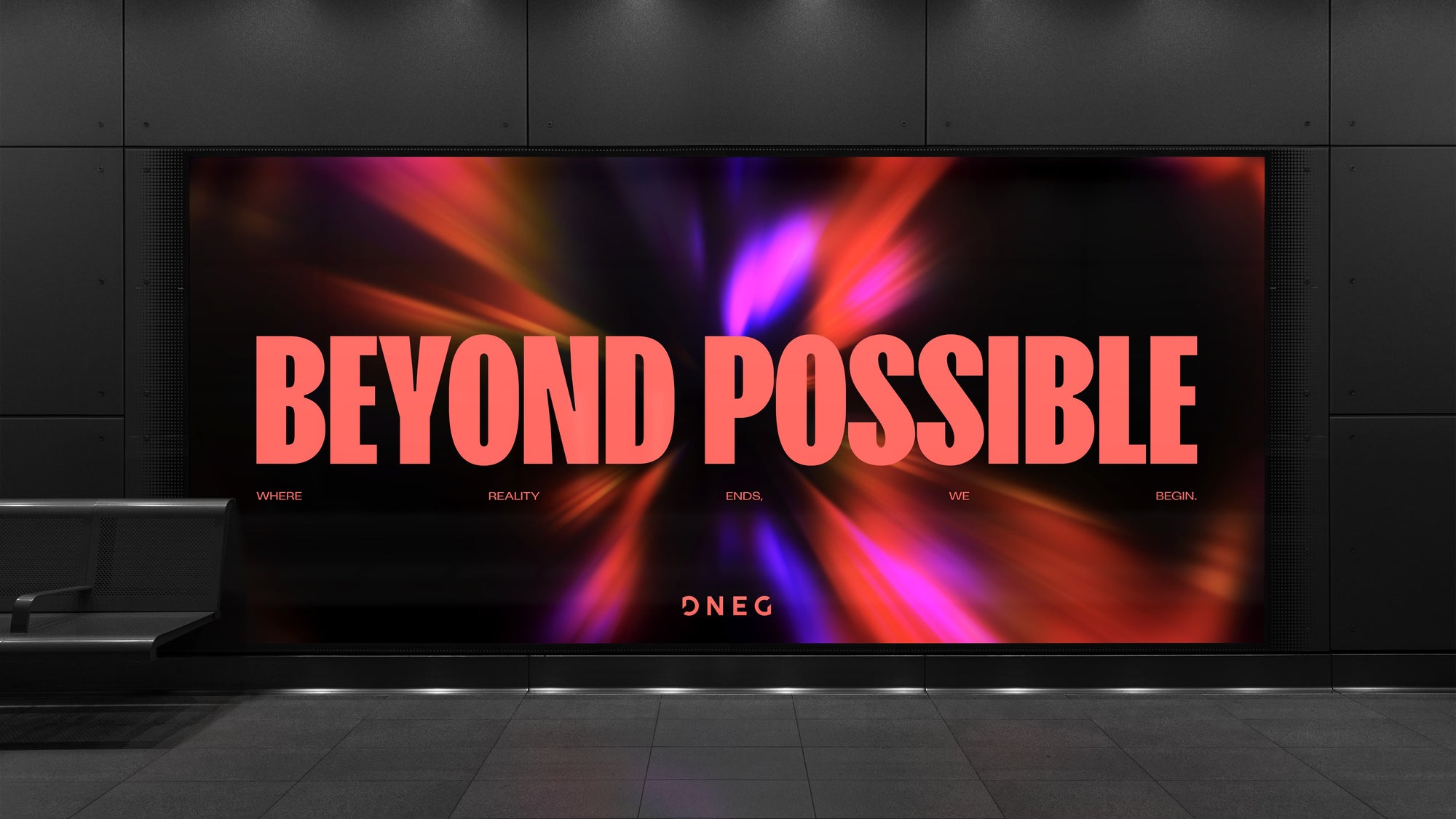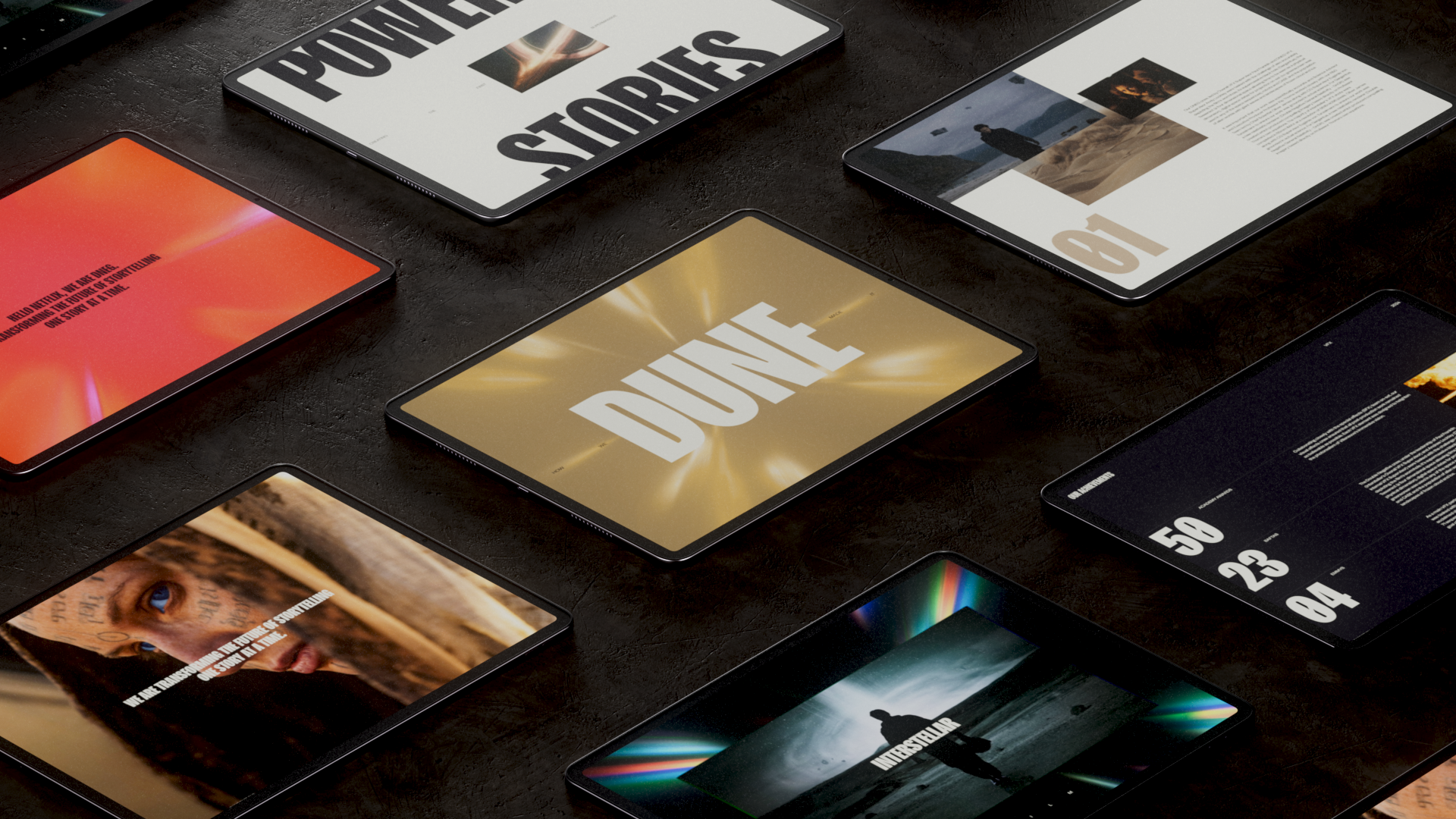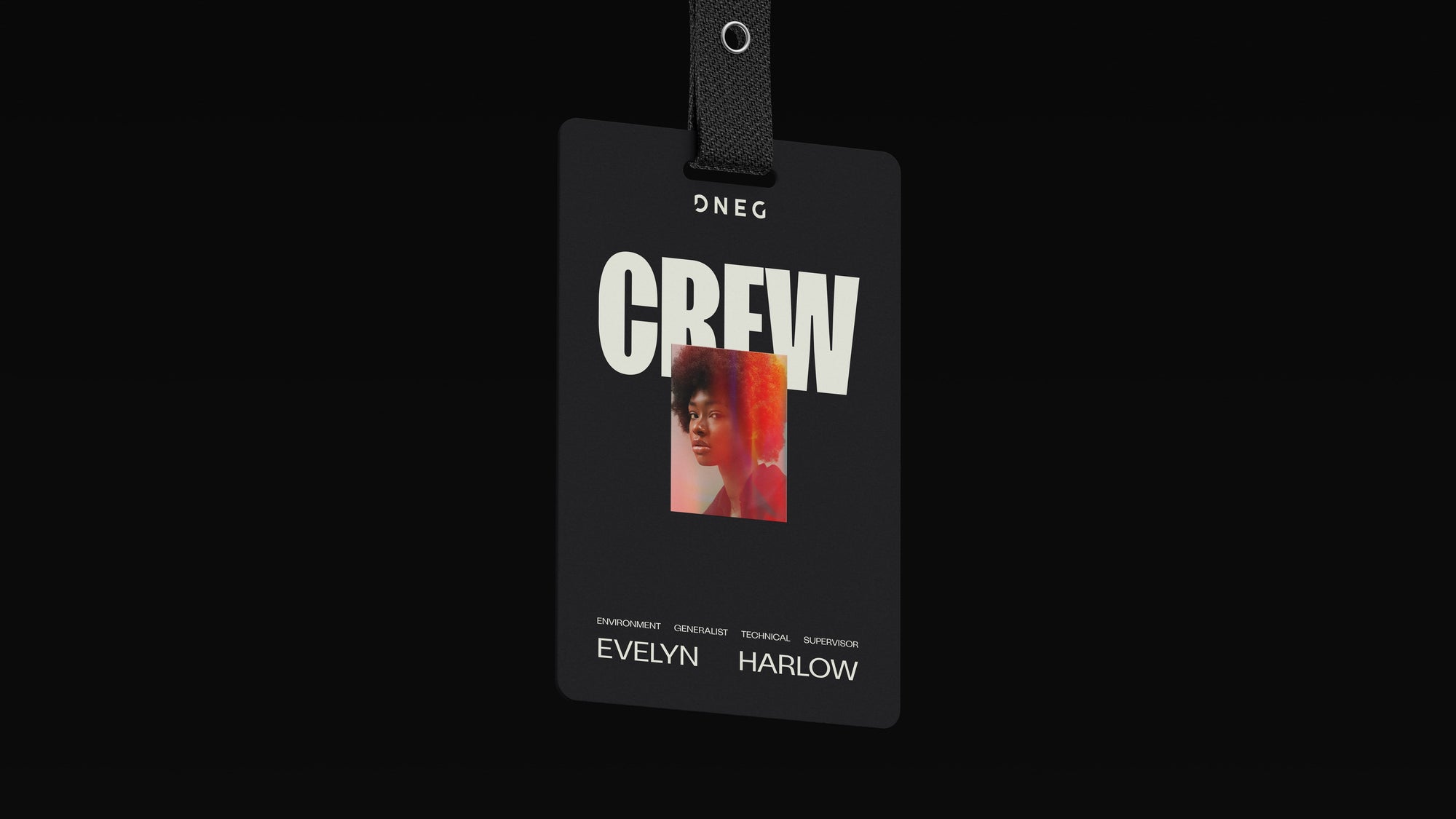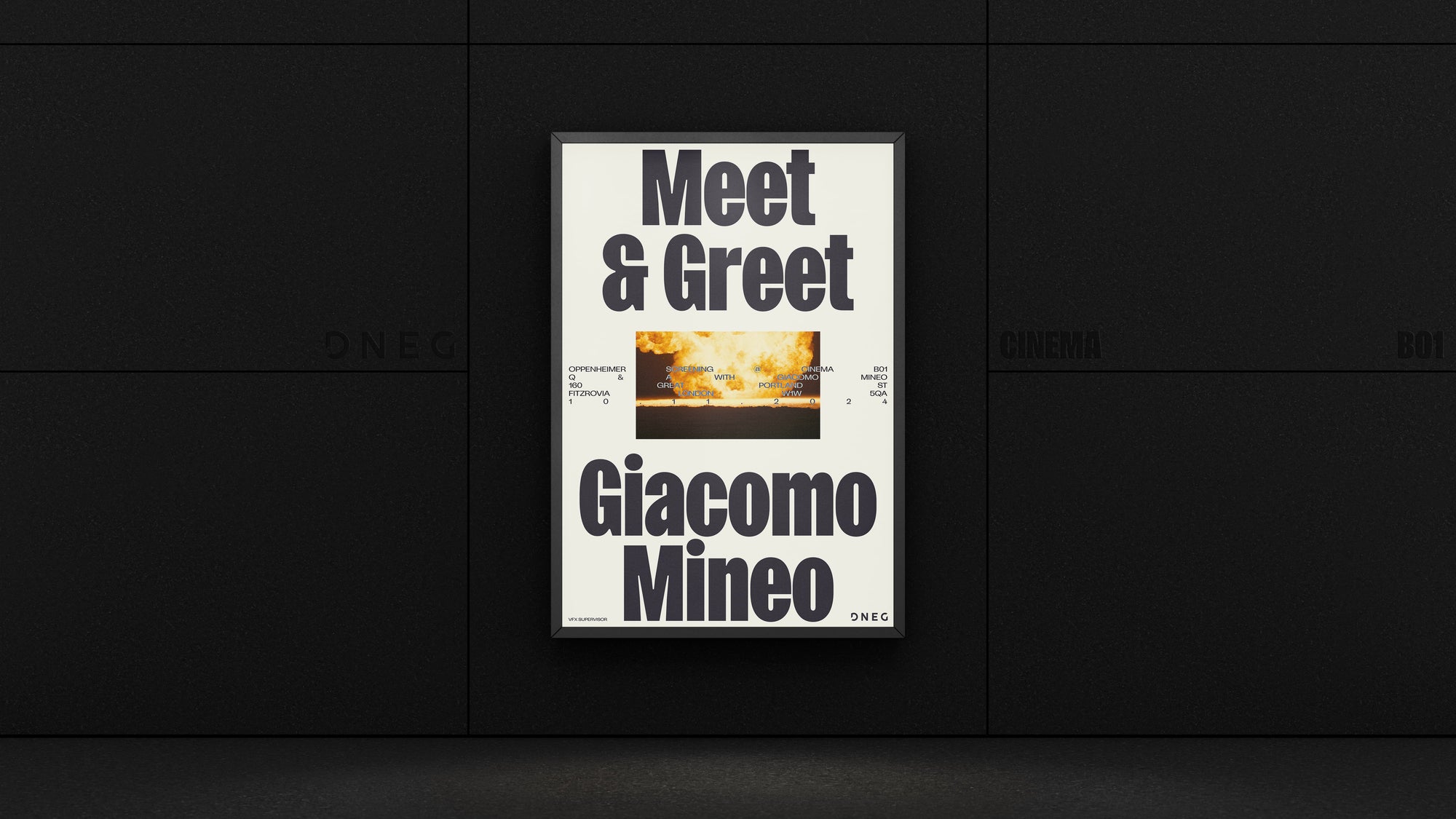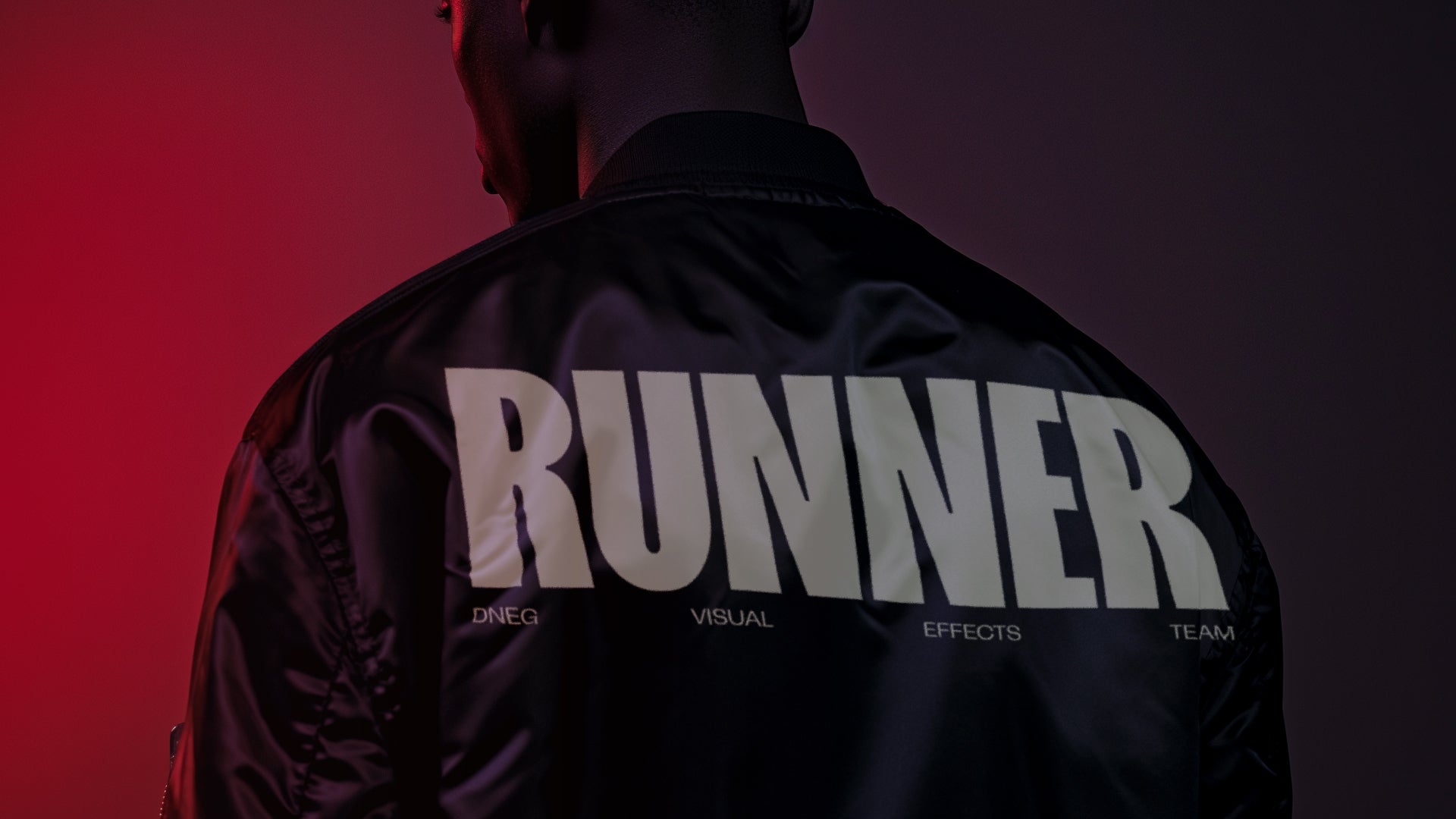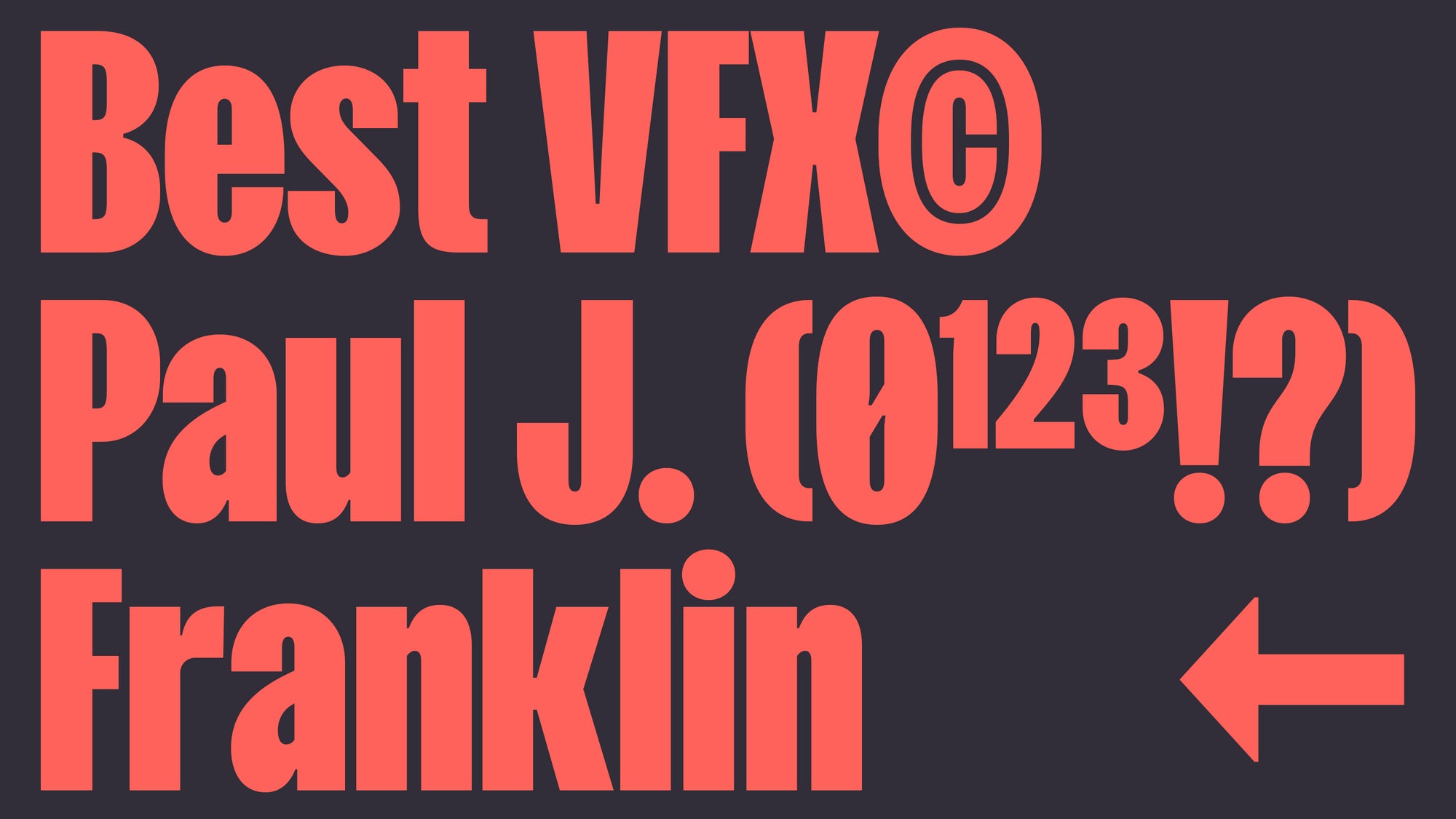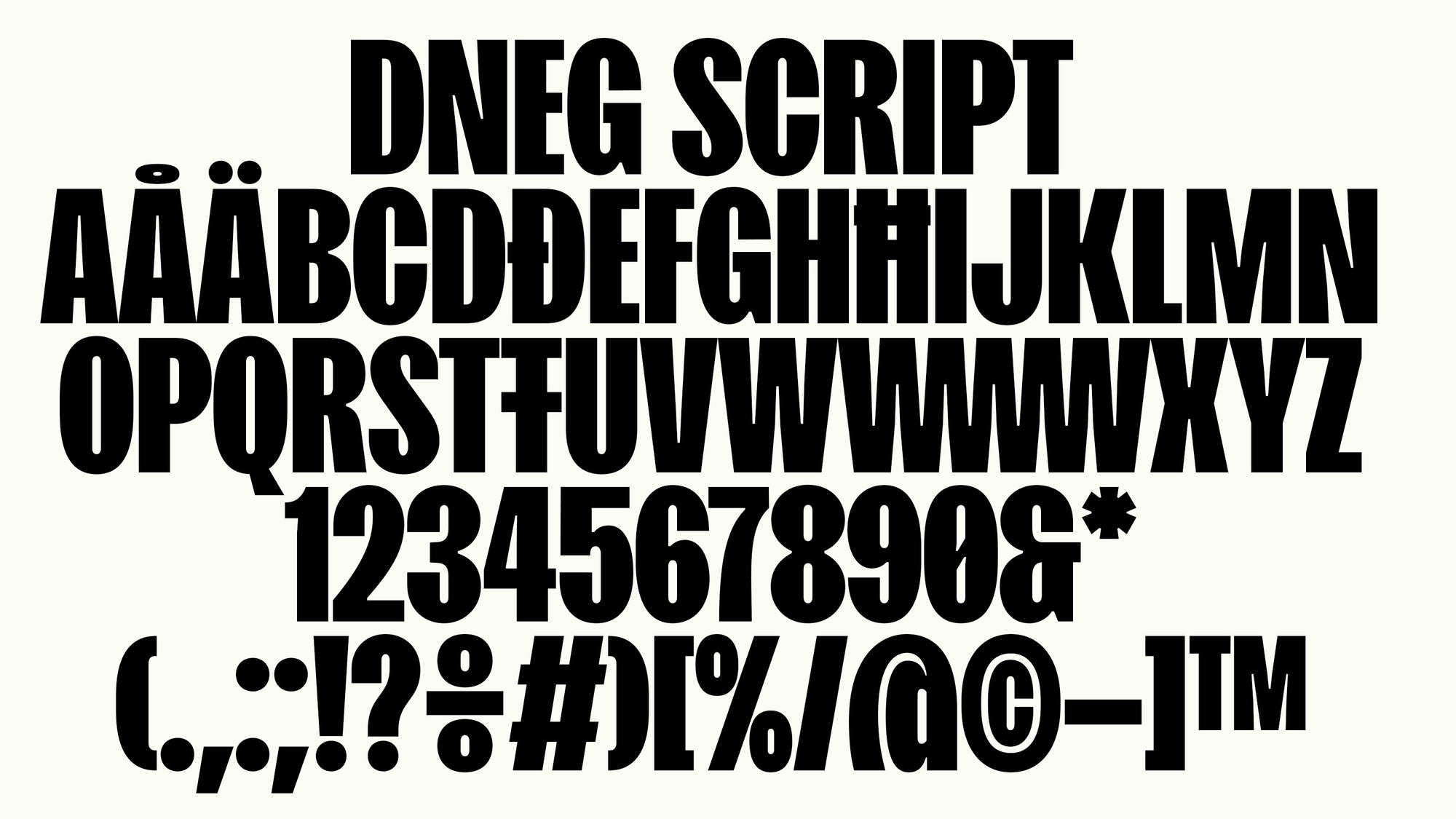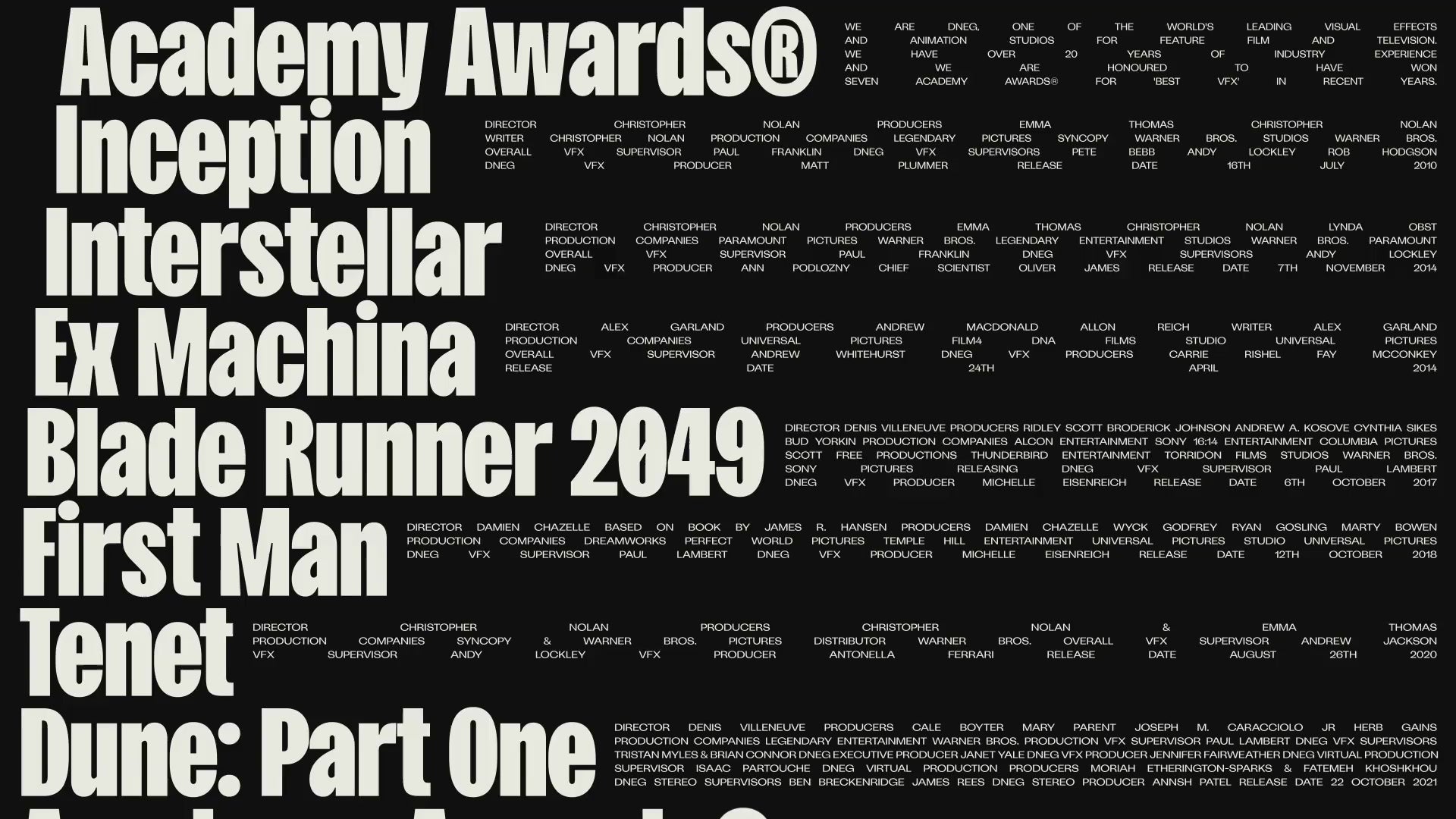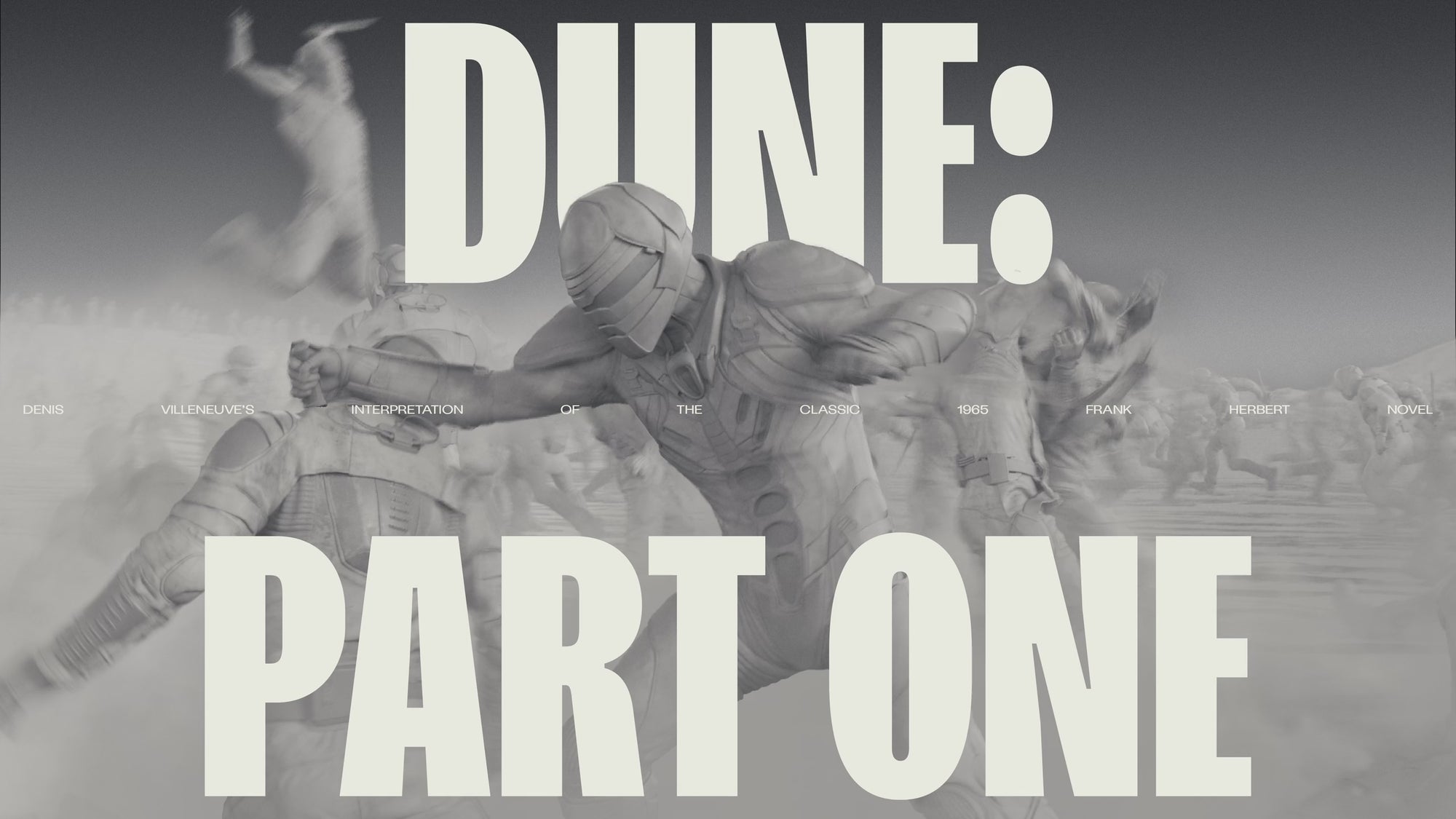
DNEG
DNEG Script
In collaboration with Design Studio, we customized our typeface Sans Plomb to support the refreshed visual identity of DNEG, one of the world’s leading VFX and animation studios. The goal was to create a typographic voice matching DNEG’s spirit — bold, forward-looking, and in constant motion.
The result is a distinctive headline typeface, DNEG Script, designed to convey energy and precision while remaining highly adaptable across a variety of media. Used alongside a refined colour palette and dynamic visual system, it helps express DNEG’s position as an industry leader, unafraid to push boundaries in film, television, and immersive experiences.